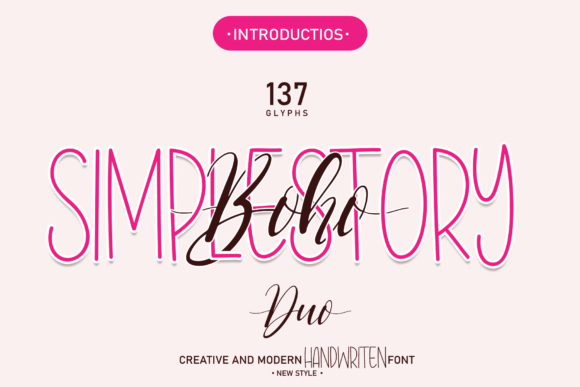
The Boho Simplestory Font: A Chic and Cheery Addition to Your Design Arsenal
I’ll never forget the time I was working on a craft project, pouring my heart and soul into it, but something just felt off. The design was beautiful, but the font I was using was, well, a bit of a dud. It was too bland, too boring, and just didn’t capture the playful, carefree vibe I was going for. That’s when I stumbled upon the Boho Simplestory font, and let me tell you, it was love at first sight! 💕
Boho Simplestory consists of two fonts designed to complement each other perfectly. Together or apart, these fonts are ideal for adding a chic and cheery touch to your crafts. And the best part? This font is PUA encoded, which means you can access all glyphs and swashes with ease!
- ✨ The Boho Simplestory font is ridiculously versatile – use it for crafts, branding, or even social media graphics!
- ✅ The two fonts work beautifully together, but they’re also stunning on their own.
- 🎉 The PUA encoding makes it super easy to access all the glyphs and swashes.
- 💻 The font is perfect for digital and print projects alike.
⚠️ While the font is amazing, it’s not suitable for very small text sizes – the details can get a bit lost.
🤔 Some users might find the font a bit too ‘trendy’ for their taste, but I say, what’s wrong with a little boho chic? 😊
The Designer Inspiration Behind Boho Simplestory
While the true story behind Boho Simplestory’s creation is unknown, it’s easy to imagine a designer who loves bohemian style and simplicity. Perhaps they were inspired by global travel, vintage markets, and eclectic fashion. Whatever the inspiration, the result is a font that’s both chic and cheery – perfect for adding a little boho flair to your designs.
Q: Is Boho Simplestory suitable for digital and print projects?
A: Absolutely! Boho Simplestory is designed to work beautifully in both digital and print formats.